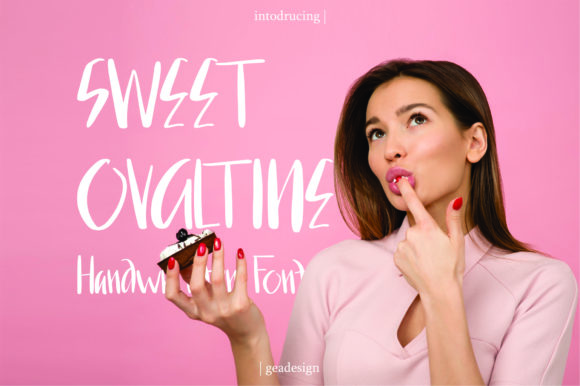
Immerse yourself in the world of Sweet Ovaltine, a script font family that's a true gem in the realm of typography. Created by the talented geadesign, this exquisite font exudes a classic charm that adds a touch of elegance and sophistication to any design.
With its delicate strokes and flowing lines, Sweet Ovaltine brings a sense of timeless beauty to your creations. Whether you're a graphic designer crafting logos and invitations or a blogger seeking to add a personal touch to your website, this font is the perfect choice for you.
Imagine your designs adorned with the graceful curves and playful flourishes of Sweet Ovaltine. Your social media posts will stand out with a unique charm, grabbing the attention of your audience. Your branding materials will exude professionalism and elegance, leaving a lasting impression on your clients.
Sweet Ovaltine effortlessly complements a wide range of design aesthetics, from vintage and romantic to modern and minimalist. Its versatility makes it a great choice for a variety of projects, including wedding invitations, greeting cards, posters, and product packaging.
But what truly sets Sweet Ovaltine apart is its ability to evoke emotions. The font's soft and inviting curves create a sense of warmth and intimacy, making it perfect for designs that aim to connect with your audience on a personal level.
So, embark on a typographic journey with Sweet Ovaltine and unlock a world of creative possibilities. Let your designs shine with timeless elegance and captivating charm. Embrace the beauty of handwritten artistry and elevate your projects to new heights of sophistication. Download Sweet Ovaltine today and experience the difference!